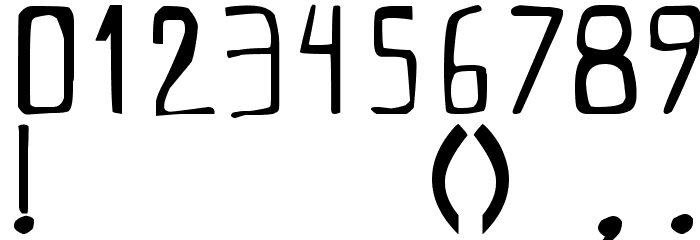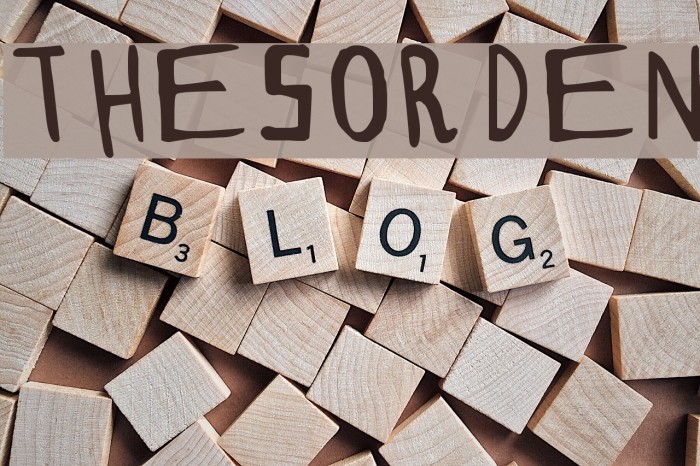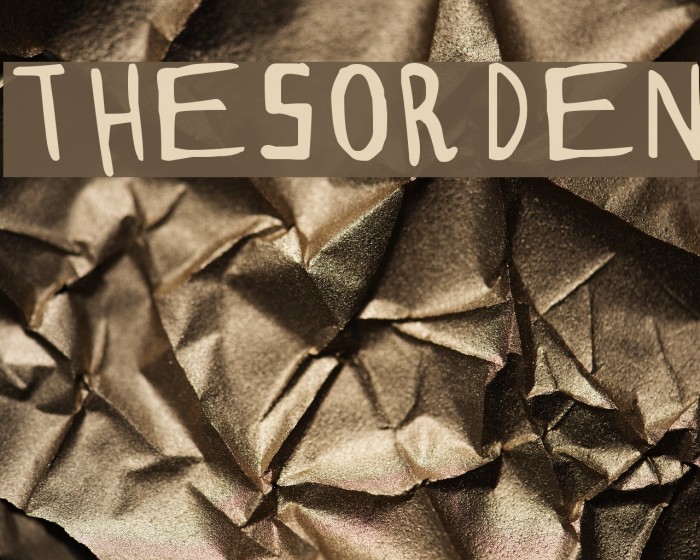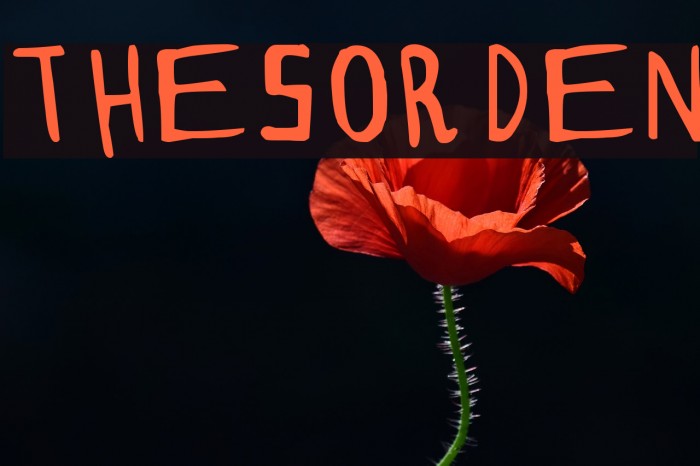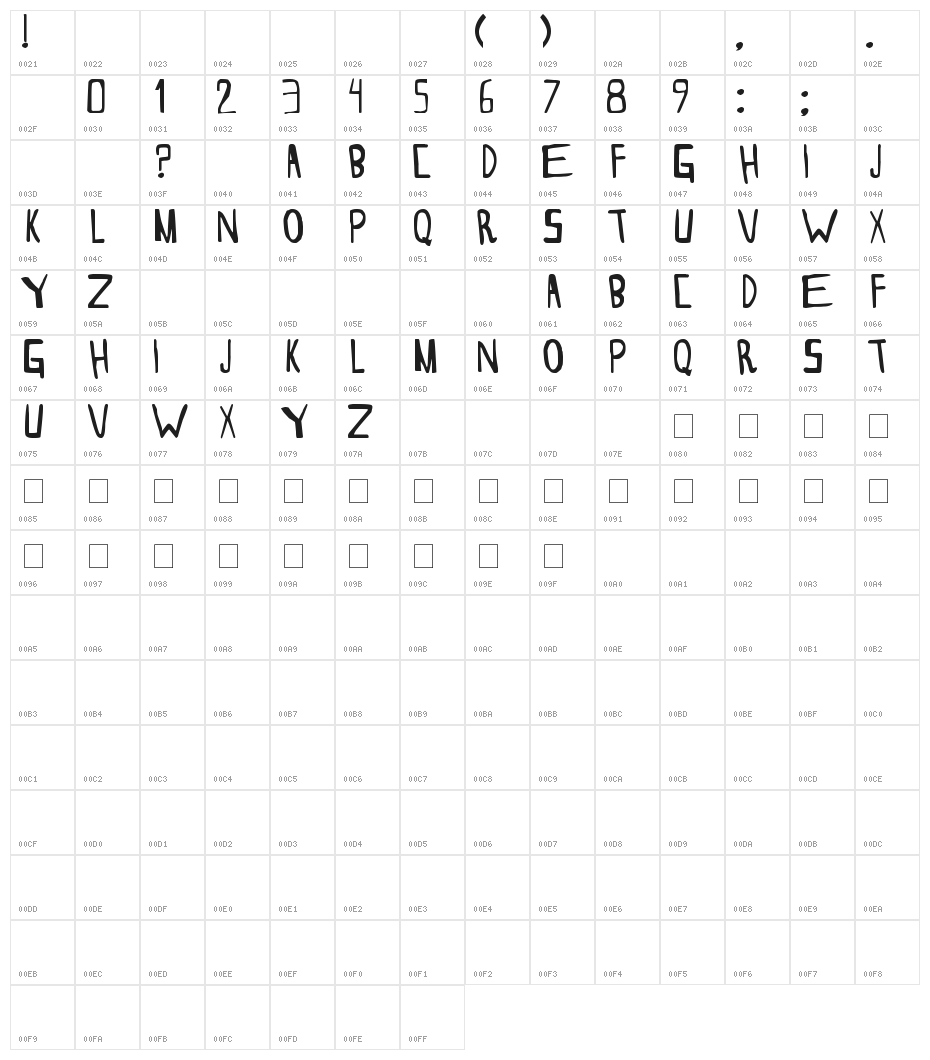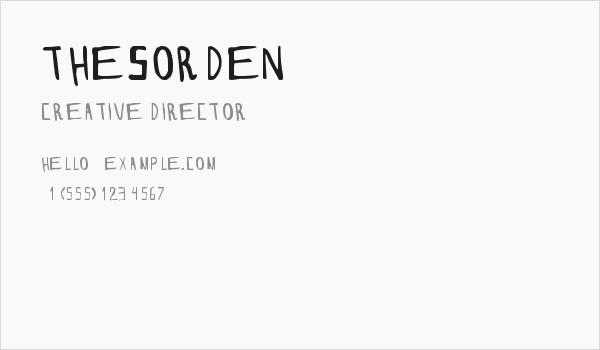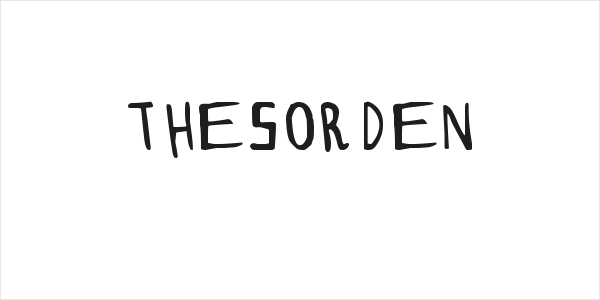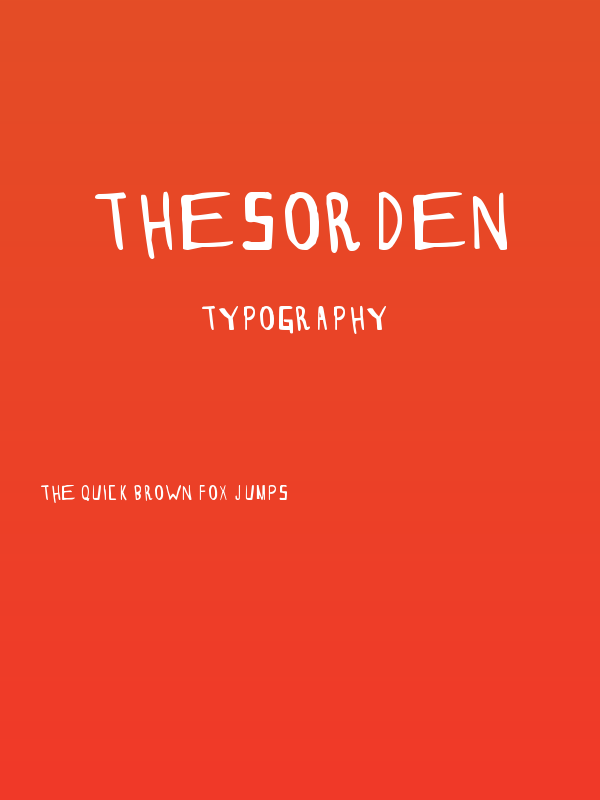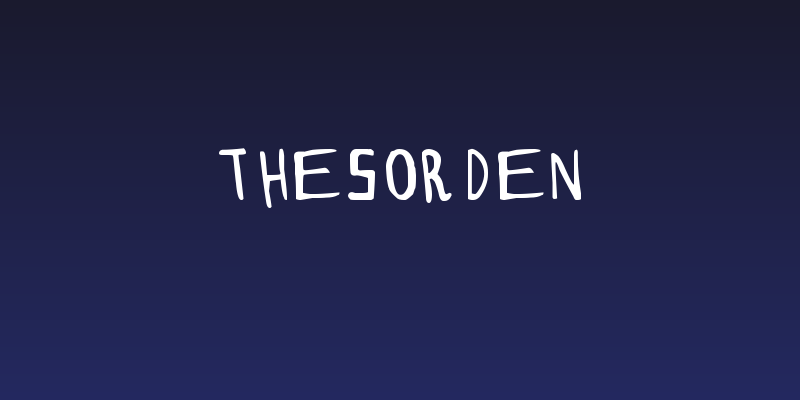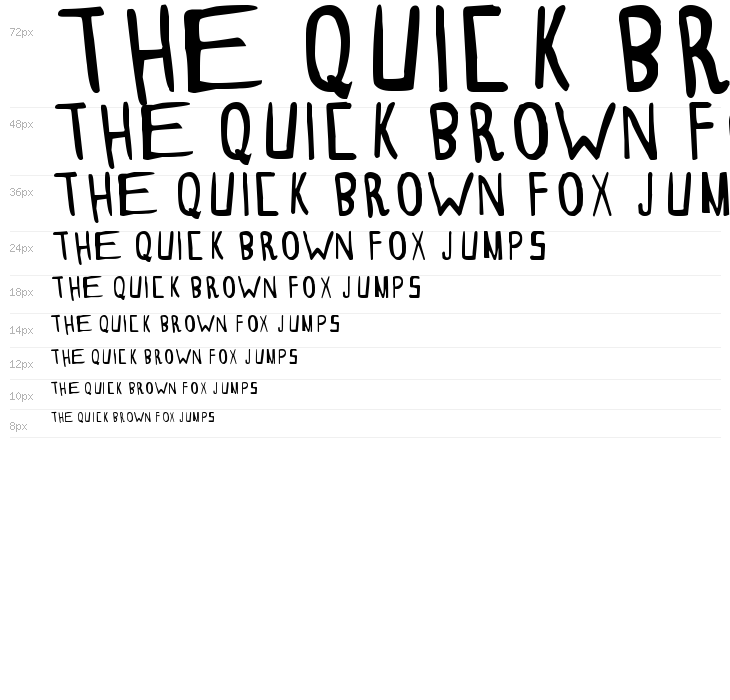
THESORDEN Font
This font features a playful and slightly irregular design, characterized by its hand-drawn appearance. The letters have a casual, informal style with uneven strokes and varying thickness, giving it a whimsical and approachable feel. The uppercase and lowercase letters maintain a consistent style, while the numbers and special characters complement the overall look. The font's unique charm makes it suitable for creative projects that require a personal touch.
A playful, hand-drawn font with a whimsical and informal style.
- Proposed Projects: Ideal for children's books, greeting cards, playful branding, and creative posters.